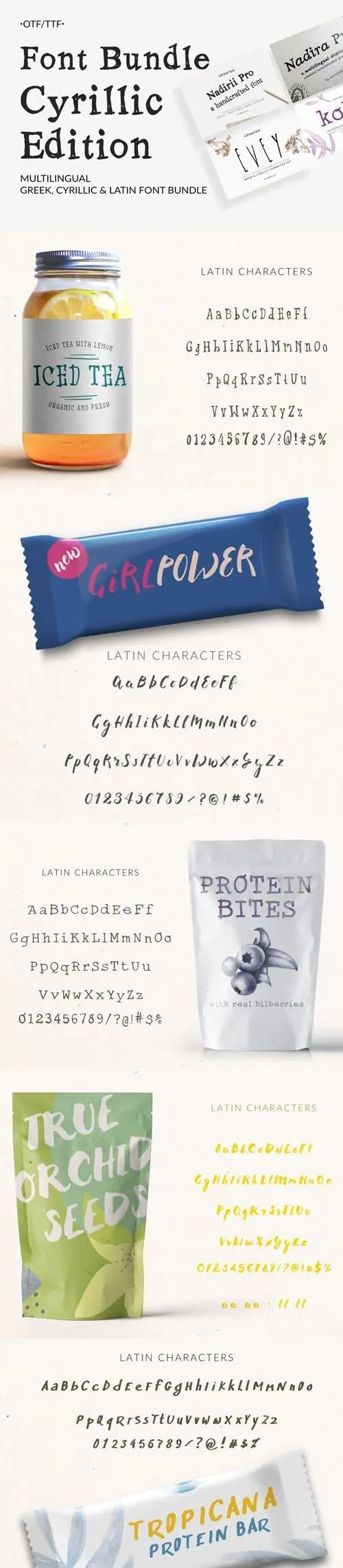
Cyrillic Font Bundle – 11 Premium Fonts
Elevate your design projects with the Cyrillic Font Bundle, featuring 11 premium fonts specifically crafted for versatility and style. This collection includes a variety of font styles and weights, ensuring you have the perfect typeface for any occasion.
• Styles: Serif, Sans-serif, Display, and more
• Weights: Light, Regular, Bold, and Extra Bold